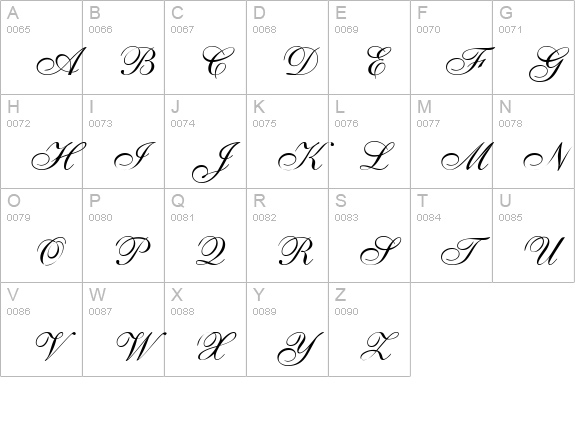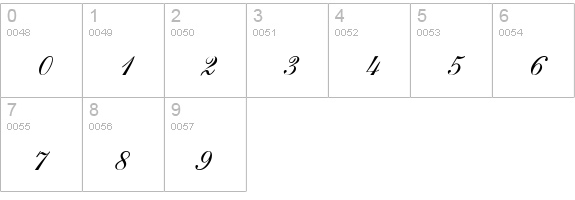
S721-Script-Two-Regular is the standard, neutral variant in the S721 typeface family \xE2\x80\x94 well suited to general body text, paragraphs, and standard typographic work.
S721-Script-Two-Regular font is a stunning and elegant script typeface that exudes sophistication and charm. Its flowing lines and intricate details make it perfect for adding a touch of luxury to any design project. Whether you are creating wedding invitations, branding materials, or social media graphics, this font will elevate your work to the next level. The best part is that S721-Script-Two-Regular font is completely free to download at FontsMarket.com. You can easily access this beautiful typeface and use it in your projects without any cost. Don't miss out on the opportunity to enhance your designs with this exquisite font. Download S721-Script-Two-Regular today and let your creativity shine!